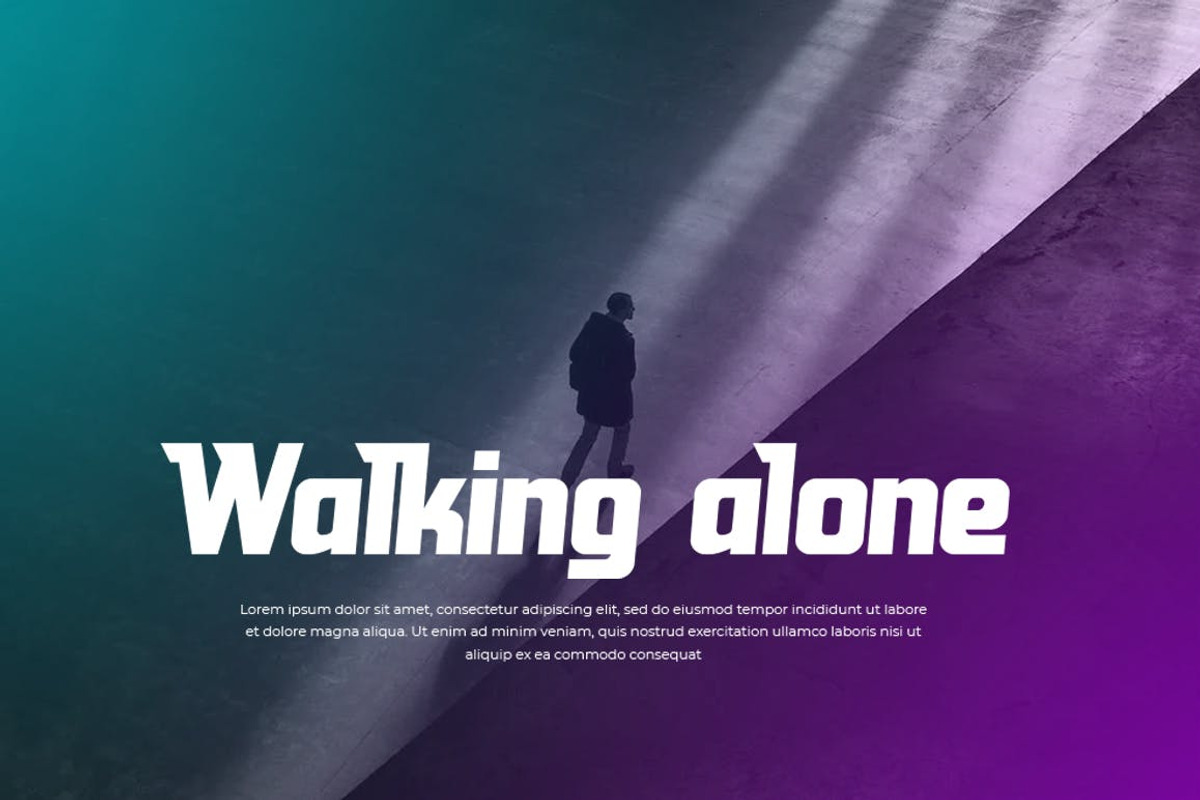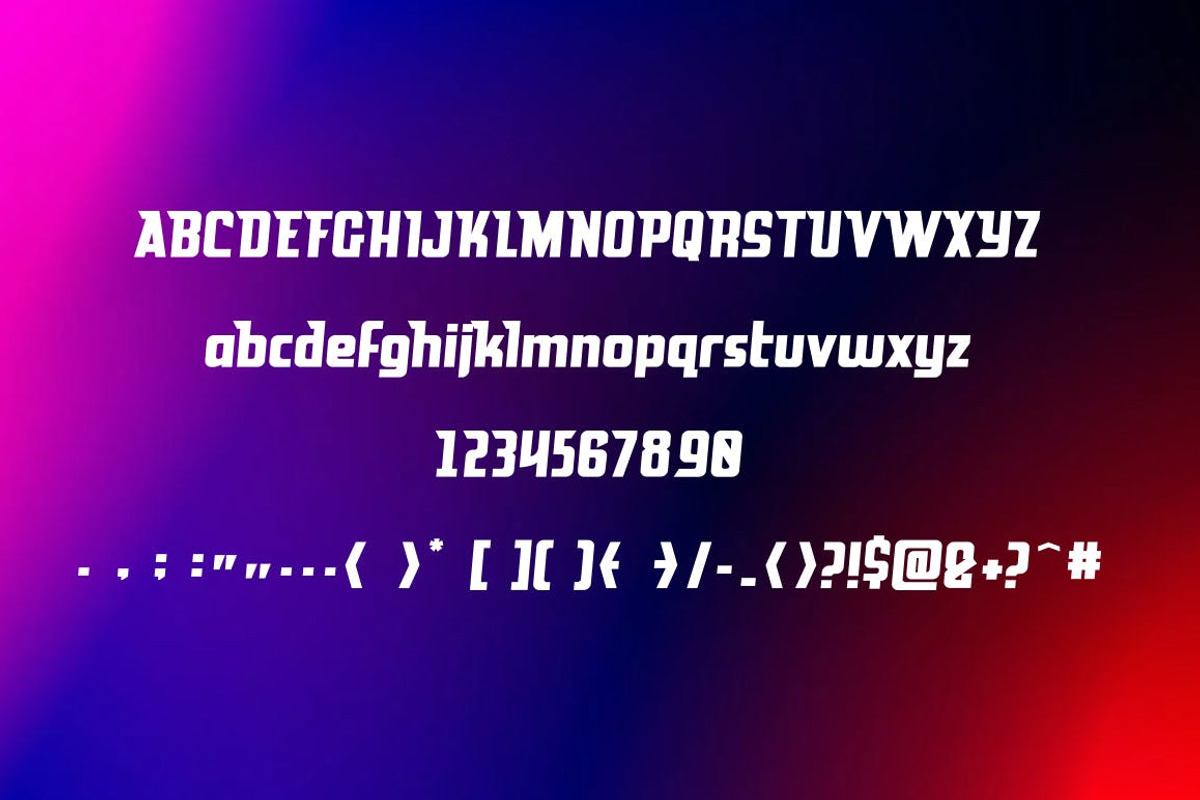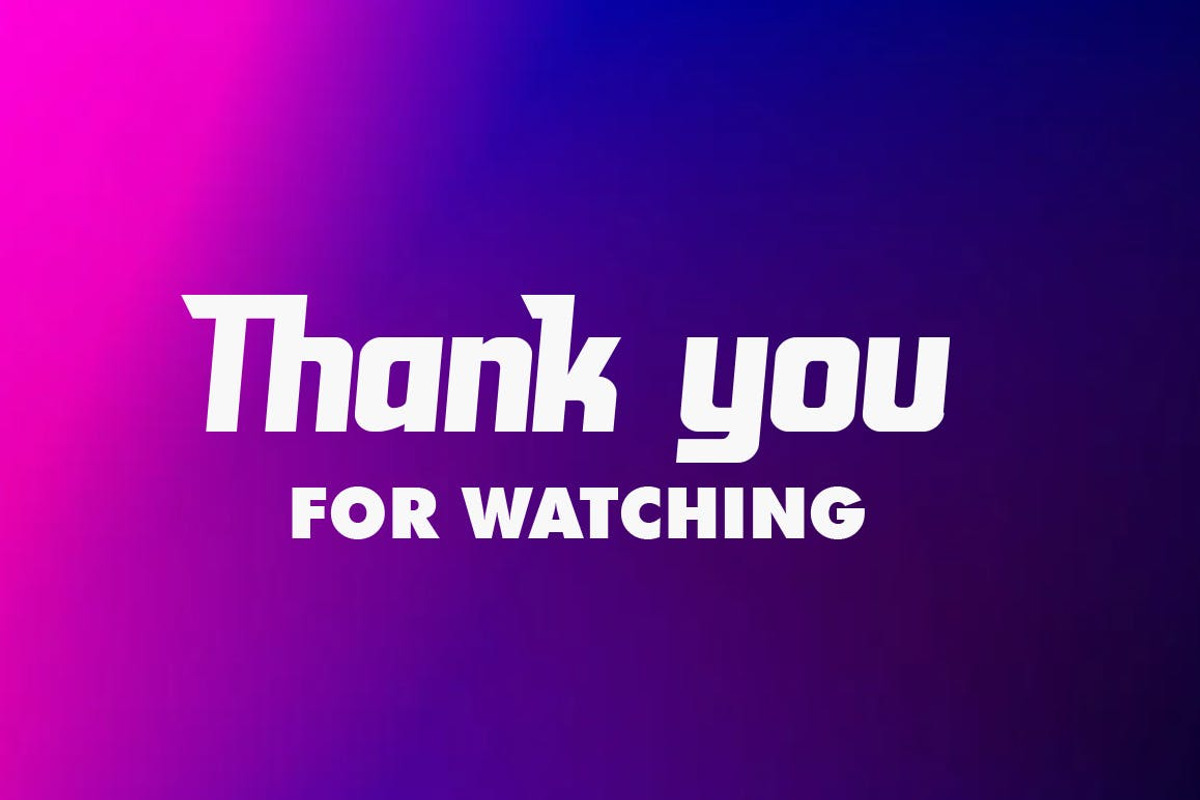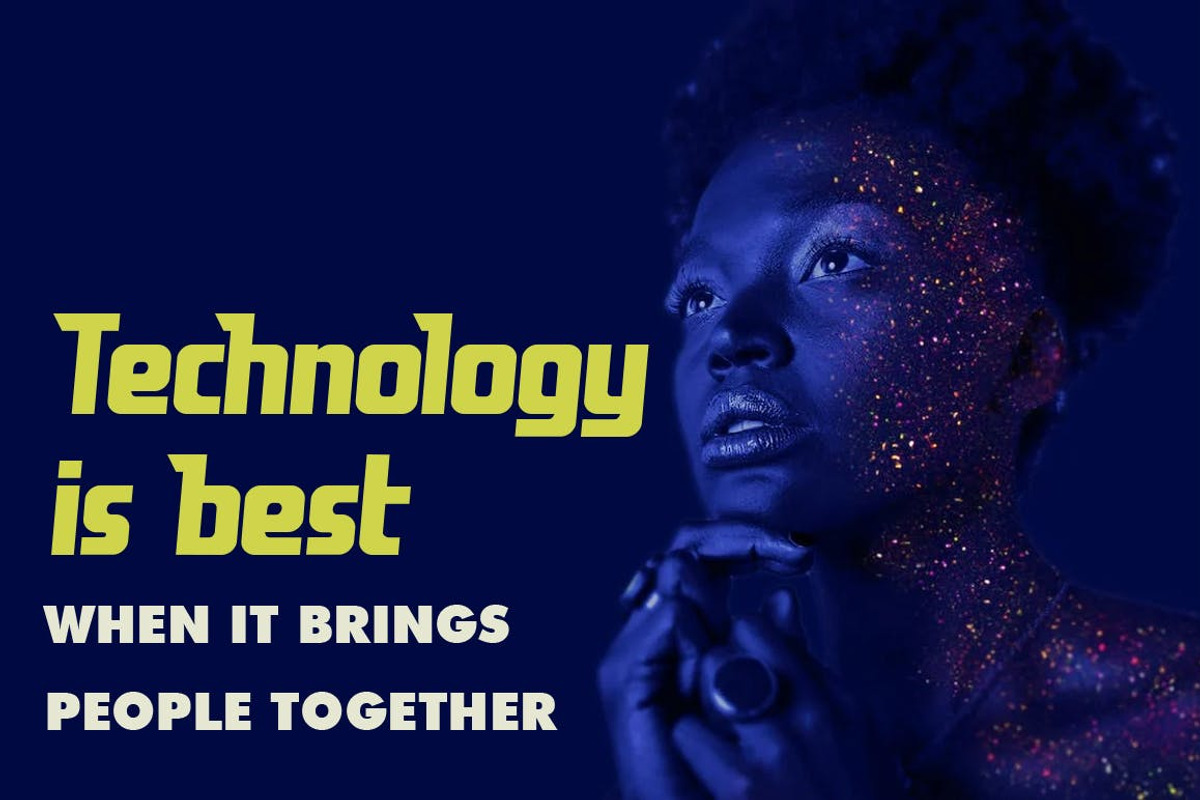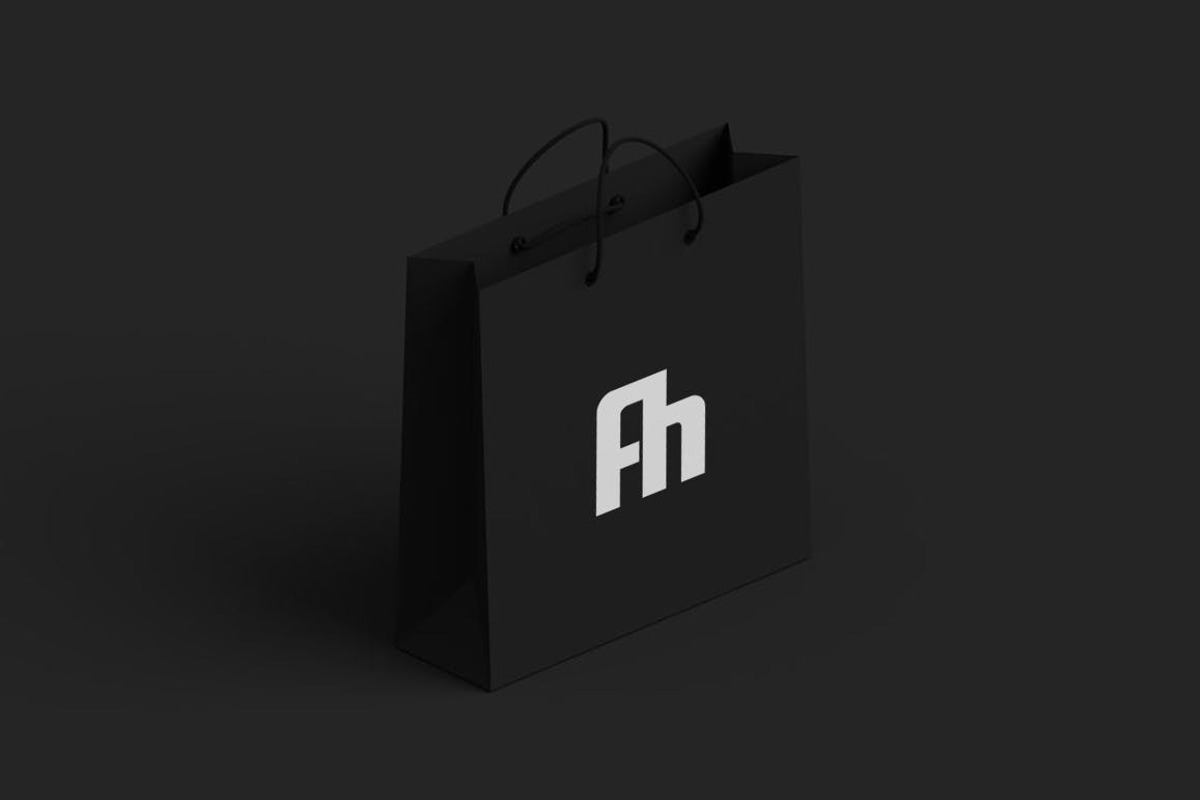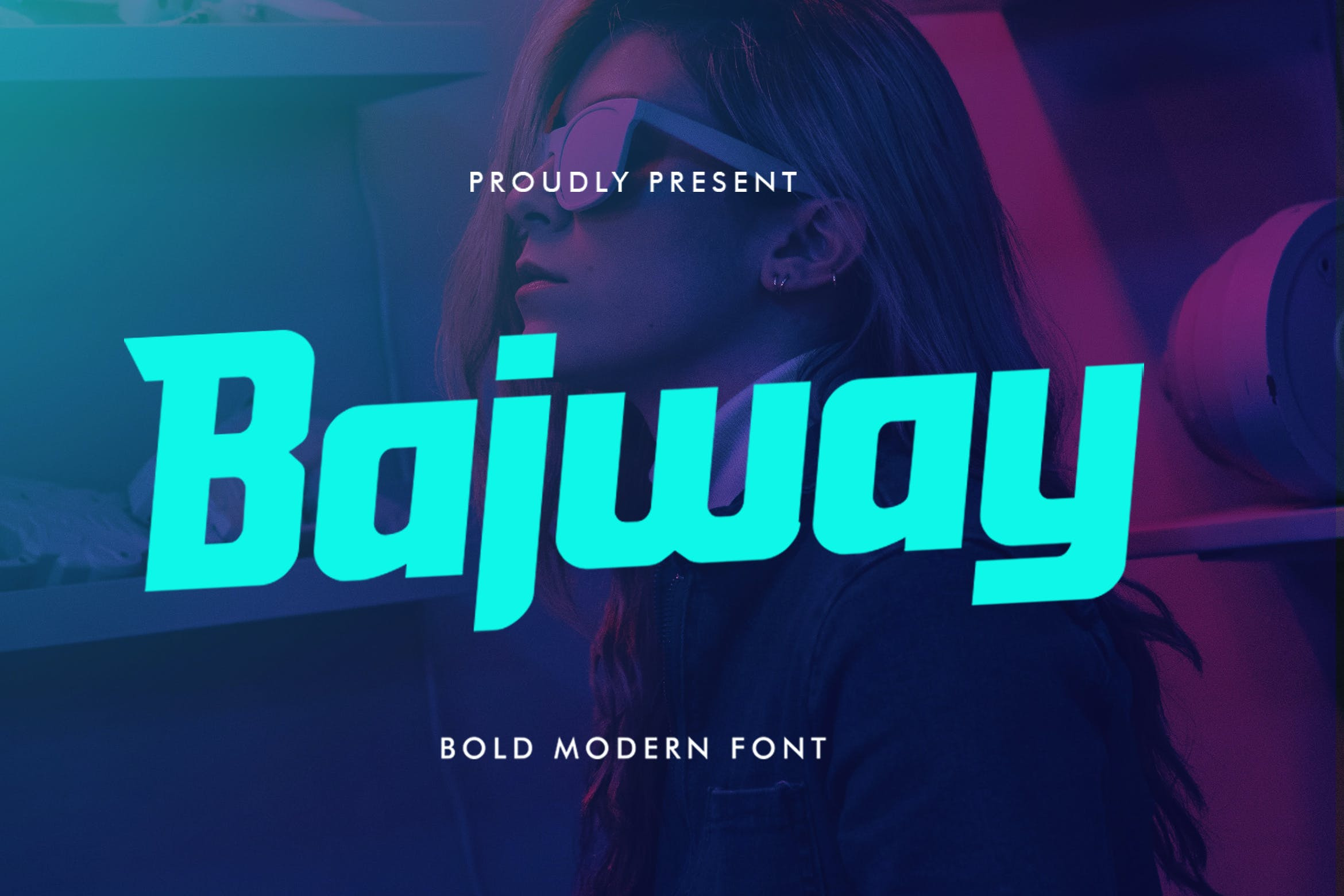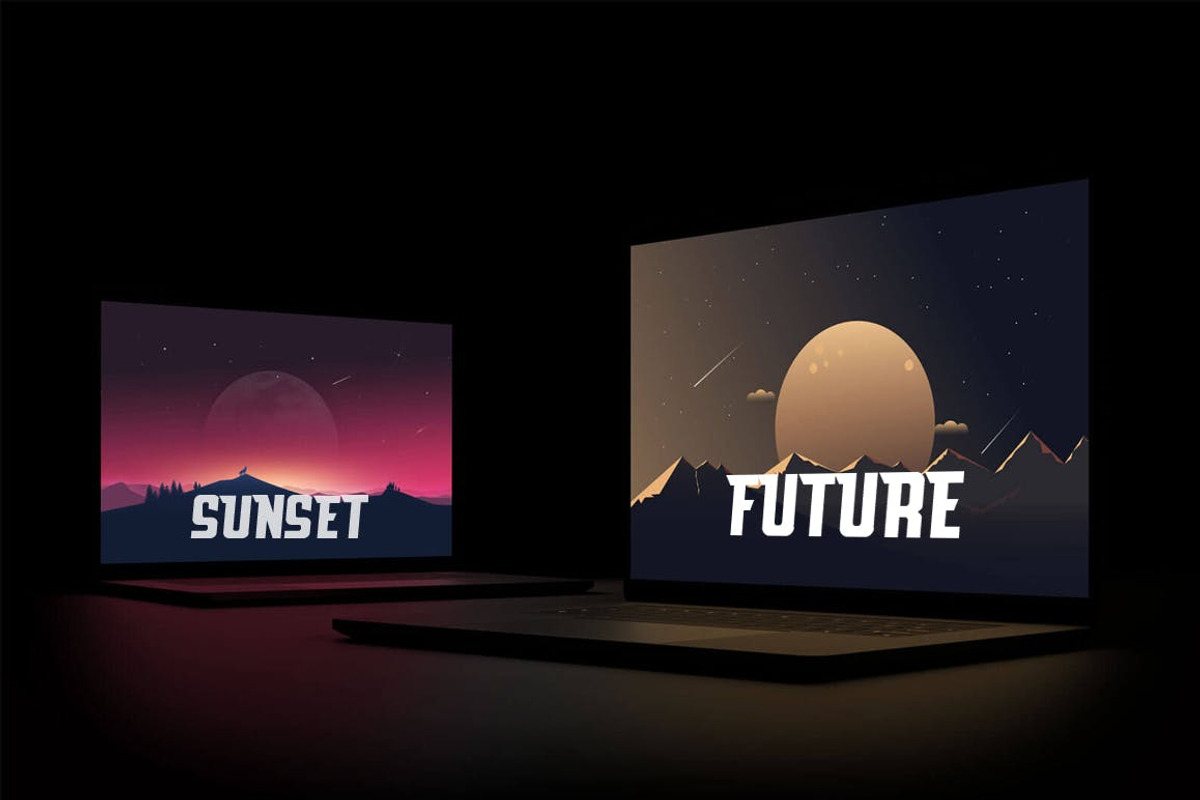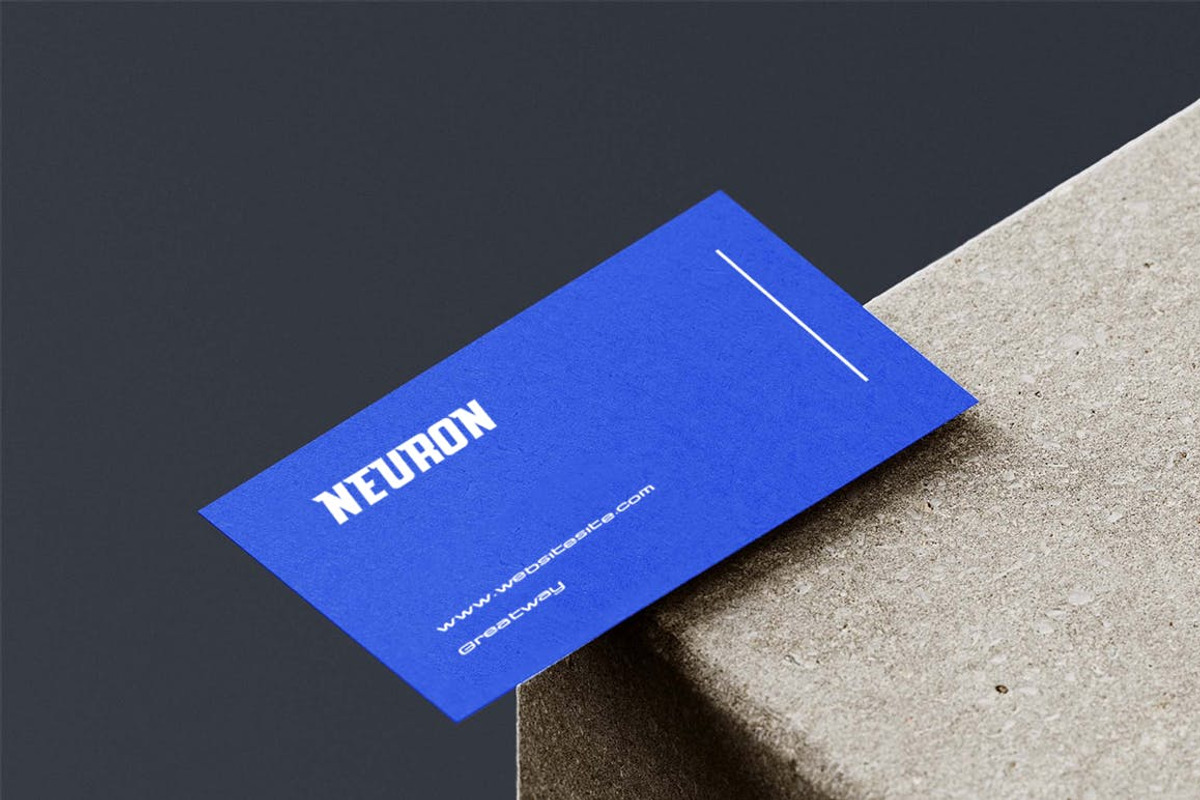
Bajway - Modern Display Font
Bajway is a sans based font with unique lowercase that will make your design looks futuristic and modern. You can use this font for any purpose, especially to make logotype.